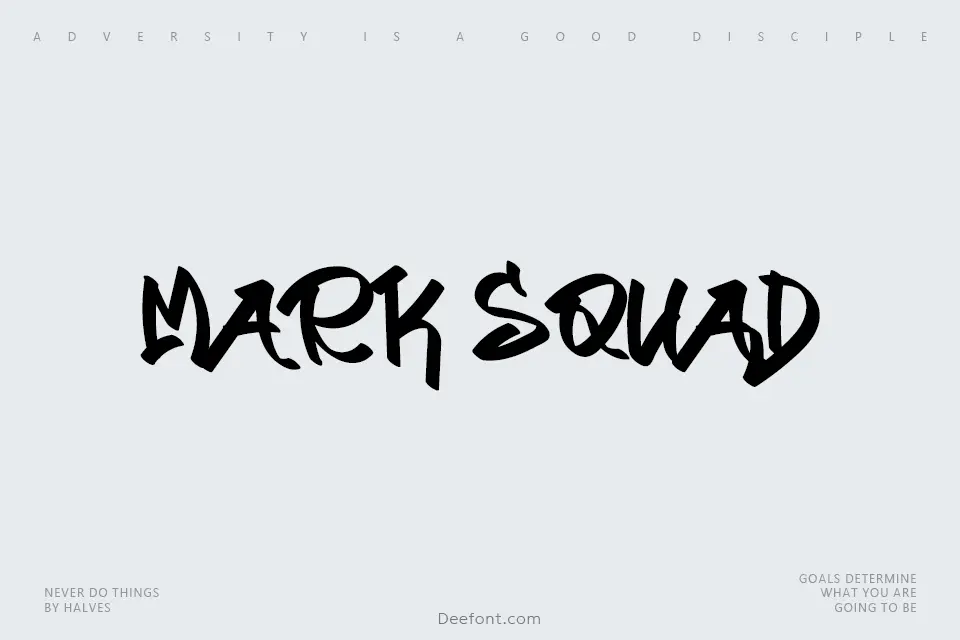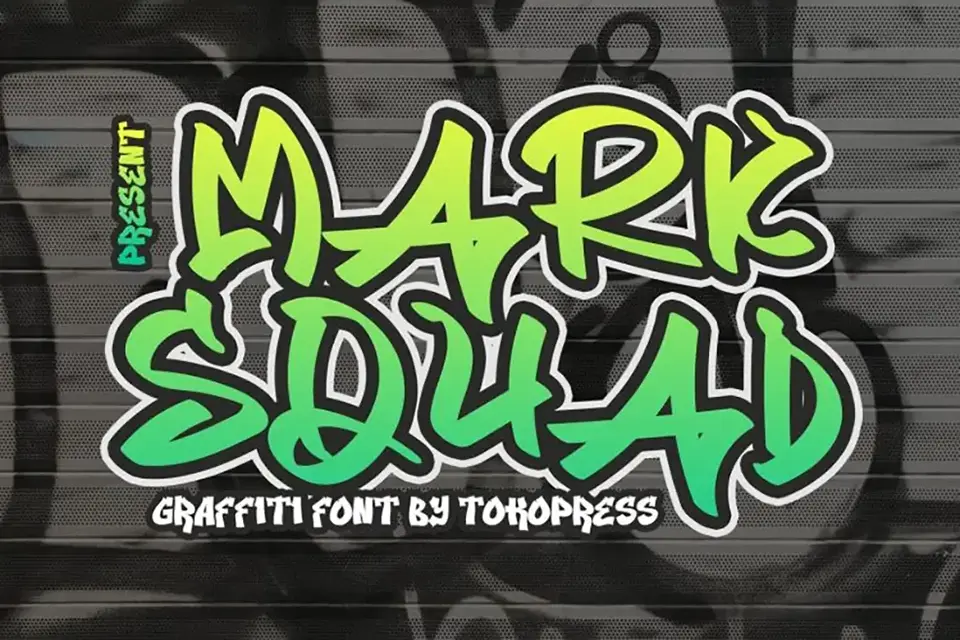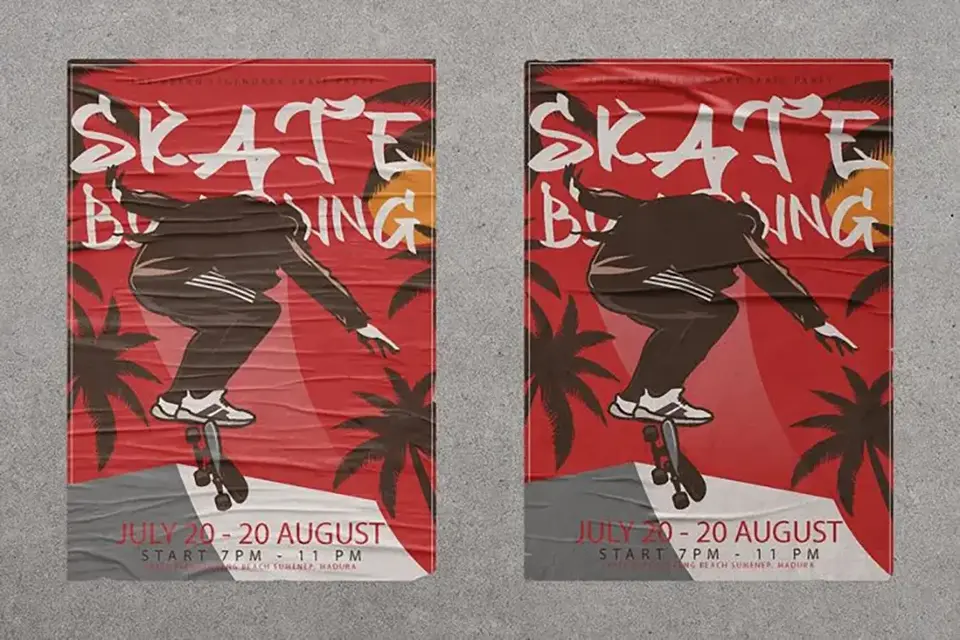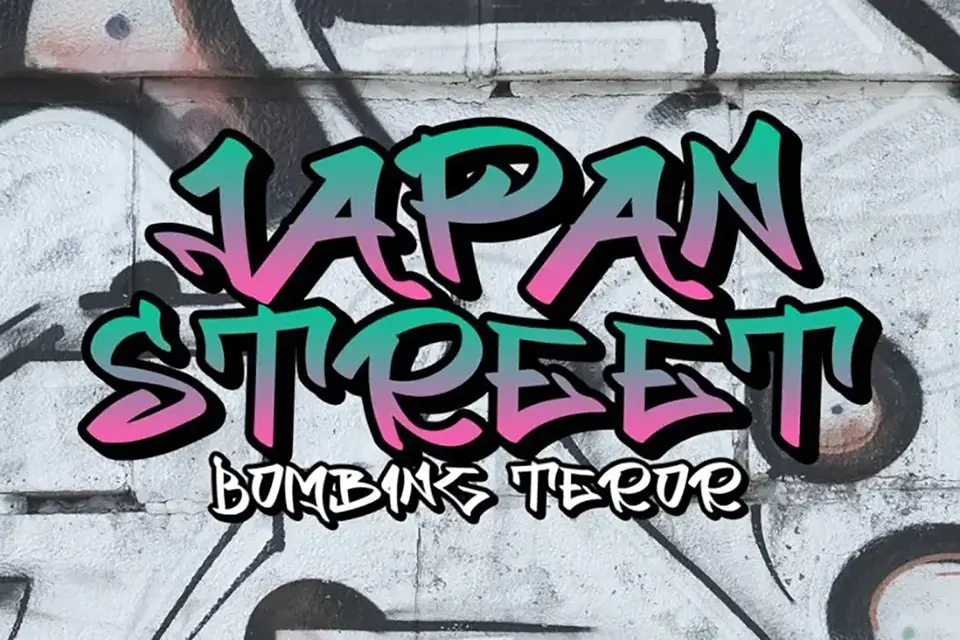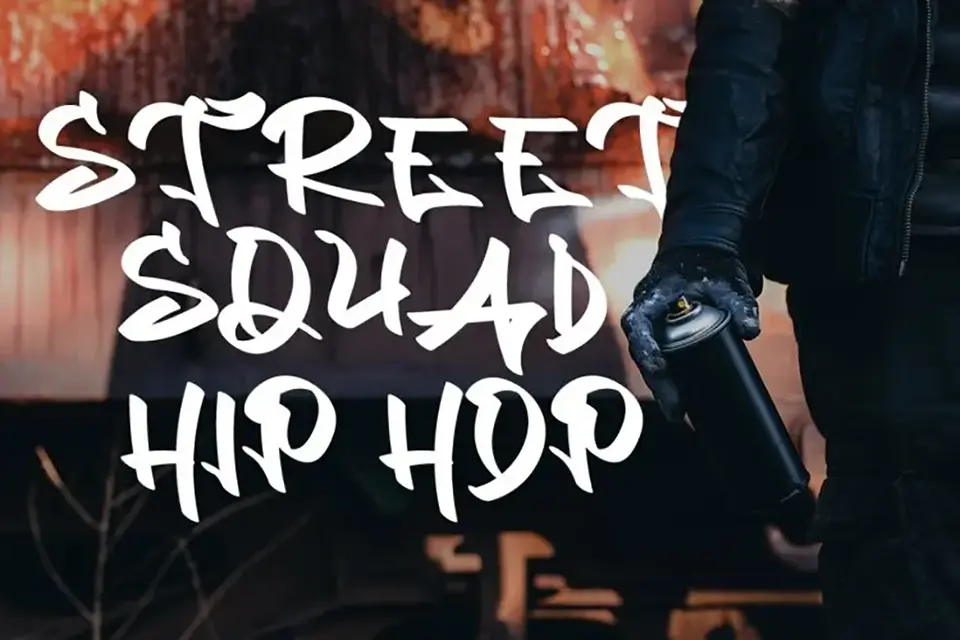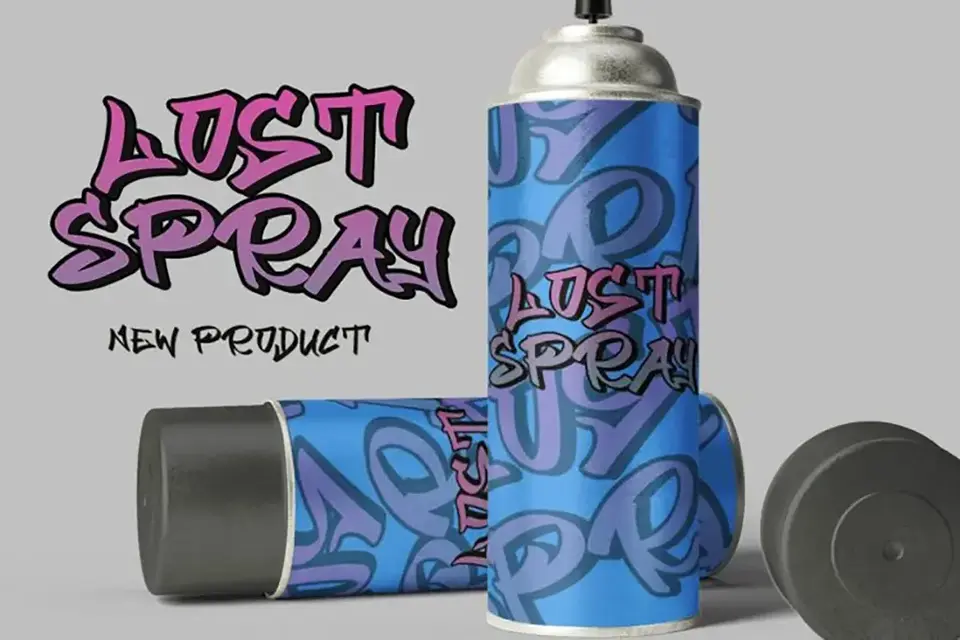
Mark Squad Font
Mark Squad is a bold, graffiti-inspired display font featuring dynamic angular strokes and urban flair. With exaggerated curves and sharp edges, it conveys movement and energy, making it ideal for street art designs, music album covers, event posters, and urban-themed branding. The font includes uppercase, lowercase, numerals, and special characters with consistent styling throughout, delivering a modern and edgy aesthetic perfect for projects that aim to capture attention with a rebellious spirit.